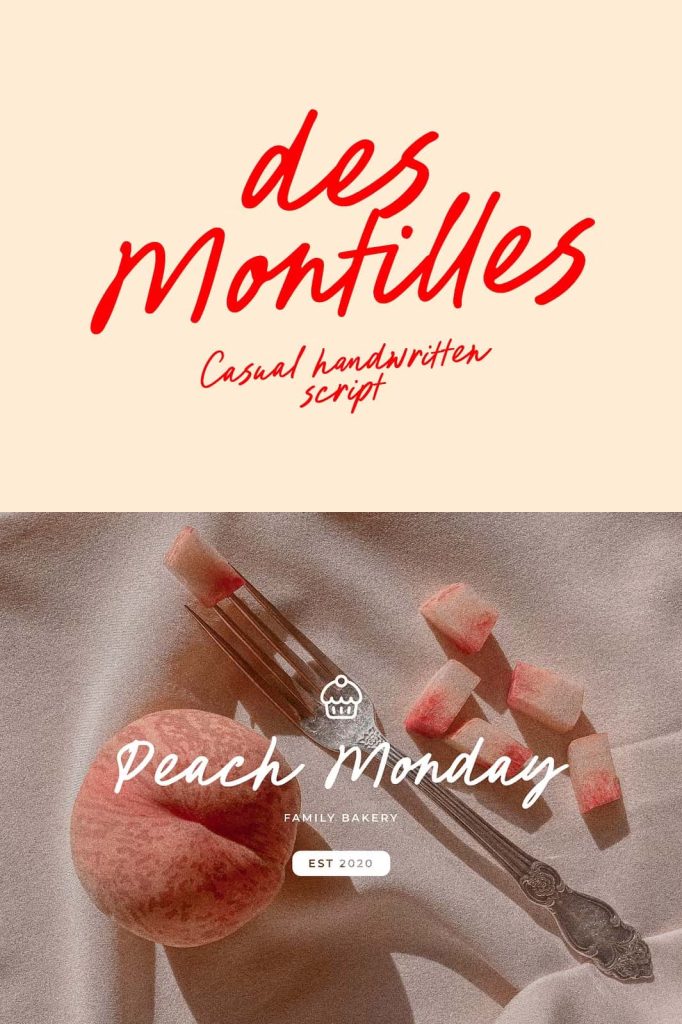
Des Montilles is a beautifully casual handwritten font that captures the essence of personal expression and creative freedom. Crafted with smooth, flowing strokes and an authentic handwritten style, this font brings warmth, charm, and individuality to any design project. Whether you are creating wedding invitations, personalized greeting cards, modern brand logos, or artistic website headers, Des Montilles provides a refined yet approachable touch that enhances your work effortlessly.
Bring Personality to Every Design
Fonts are more than just letters — they communicate emotion, style, and personality. Des Montilles does exactly that. Its natural, free-flowing character adds a human feel to your projects, making every word feel intentional and alive. The slightly uneven lines and organic rhythm of this font make it ideal for creatives who want to move beyond generic typefaces and bring authenticity to their designs.
Use Des Montilles for greeting cards to express heartfelt messages, or let it shine on wedding stationery where elegance and intimacy are essential. For photographers, its subtle charm makes it a great choice for watermarks and logos, adding a professional yet personal touch to branding. Designers can also apply it to modern websites and apparel graphics for a casual, stylish feel that resonates with today’s design trends.
Perfect Balance of Style and Versatility
The Des Montilles handwritten font blends smooth curves with a relaxed aesthetic, giving it a timeless versatility. It transitions easily between formal and informal uses, adapting effortlessly to your creative vision. Whether your design calls for something sophisticated or laid-back, this font fits right in.
Its legibility and clean structure make it suitable for both print and digital projects. You can use it confidently on packaging, social media graphics, promotional materials, and website headers. Des Montilles maintains clarity while delivering personality — a rare quality in the world of handwritten typefaces.
Why Choose Des Montilles for Your Projects?
- Authentic handwritten feel: Gives your text a natural and human touch.
- Perfect for versatile applications: Works beautifully in greeting cards, invitations, websites, apparel, and logos.
- Elegant yet casual design: Ideal for both professional branding and personal projects.
- Highly readable: Balances style and clarity for modern designs.
- Compatible across platforms: Performs seamlessly in print and digital environments.
Ideal Uses for Des Montilles
The charm of Des Montilles lies in its adaptability. It effortlessly enhances a variety of creative applications:
- Wedding Invitations: Capture the romance of the occasion with elegant handwritten text.
- Greeting Cards: Add warmth and sincerity to messages for every celebration.
- Photography Watermarks: Create stylish, memorable branding that reflects your artistic identity.
- Apparel Design: Perfect for t-shirts, tote bags, or merchandise with a personalized flair.
- Modern Websites: Use it to add visual interest to headings, banners, and creative layouts.
Elevate Your Designs with a Personal Touch
In a digital world filled with uniform typefaces, Des Montilles stands out for its human warmth and individuality. It’s not just a font — it’s a design companion that helps you express creativity and emotion through every project. Whether you’re designing for clients or personal pleasure, this handwritten font helps you craft memorable visuals that connect with your audience on a deeper level.
Des Montilles is more than a casual handwritten font; it’s an invitation to bring heart and authenticity into your design work. Its graceful lines, natural rhythm, and versatile style make it a must-have for any designer seeking to infuse projects with emotion and personality. From elegant wedding stationery to trendy apparel designs, Des Montilles offers the perfect blend of charm and sophistication.
Let your creativity flow and make every word matter with Des Montilles — the handwritten font that transforms ordinary text into art.